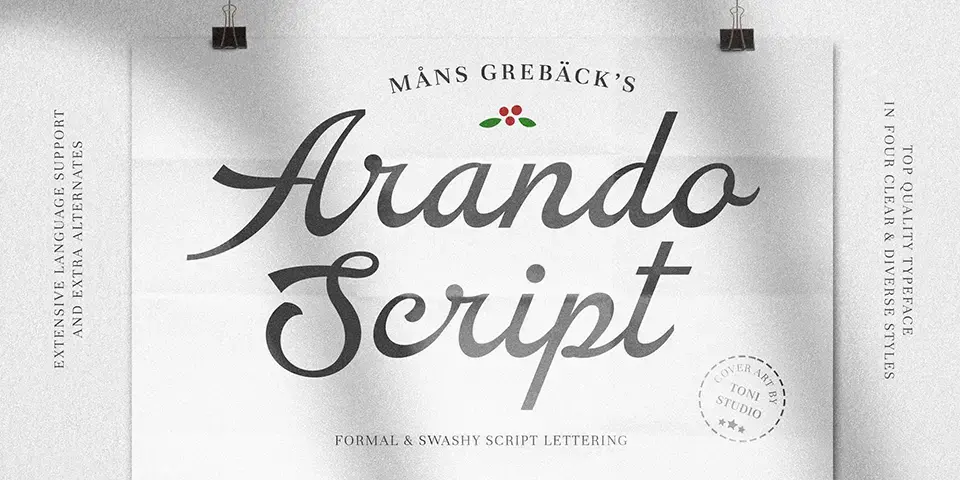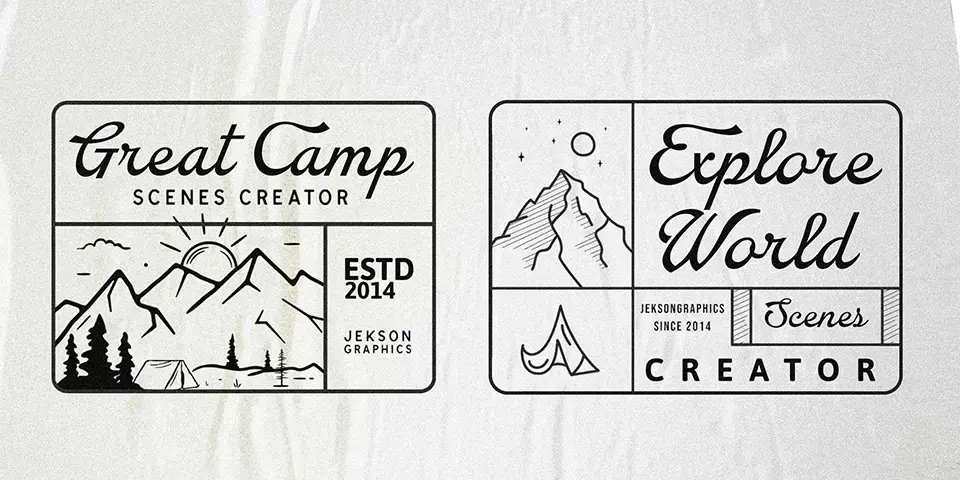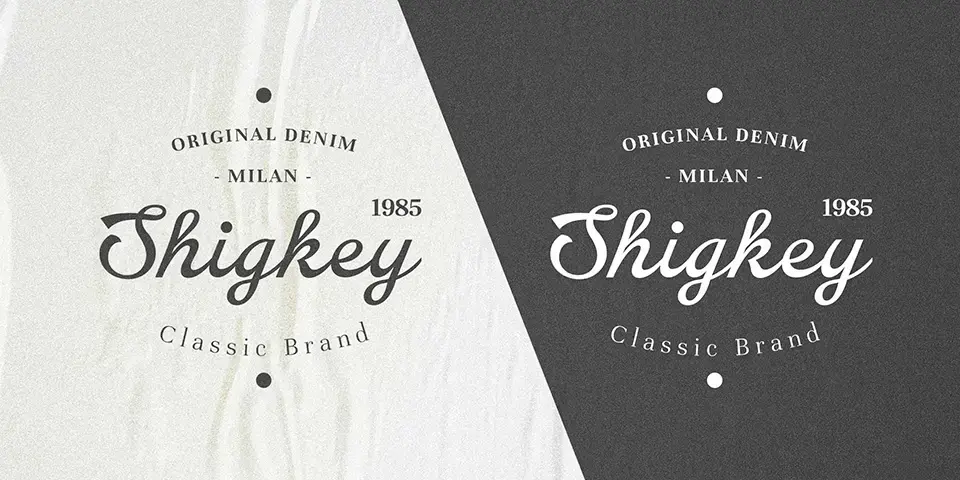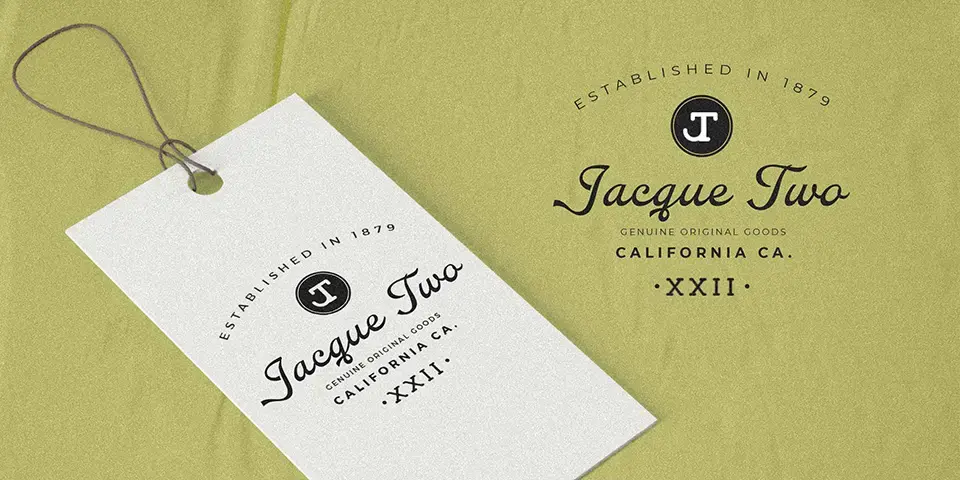
Arando Script Font
Arando Script is a sophisticated flowing calligraphic typeface featuring smooth, elegant letterforms ideal for formal and decorative applications. Designed in 2022, this script font excels in creating polished headlines for restaurants, feminine branding projects, and premium logotype designs. With four distinct styles—Regular, Bold, Italic, and Bold Italic—Arando Script delivers versatility across high-end poster work, wedding invitations, luxury packaging, and feminine-focused brand identities. The font’s graceful connecting letterforms and refined stroke quality make it perfect for projects requiring sophisticated display typography.